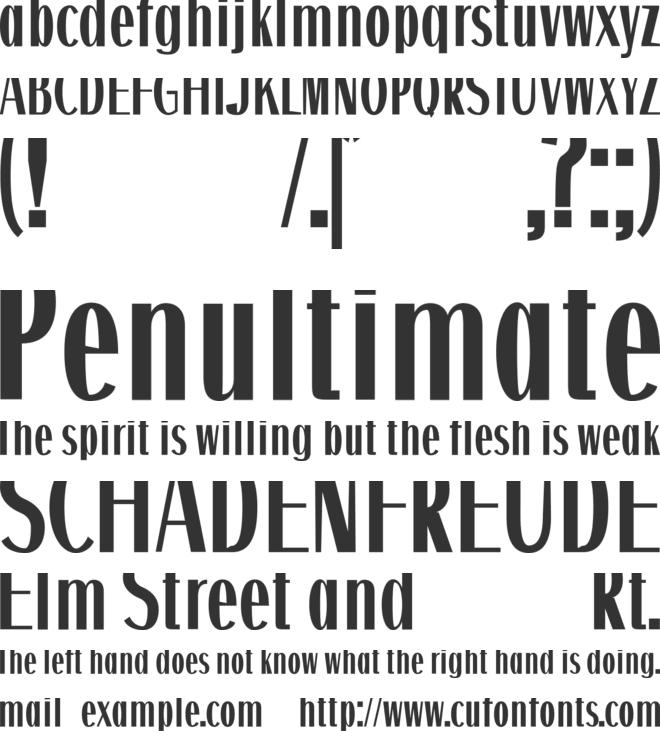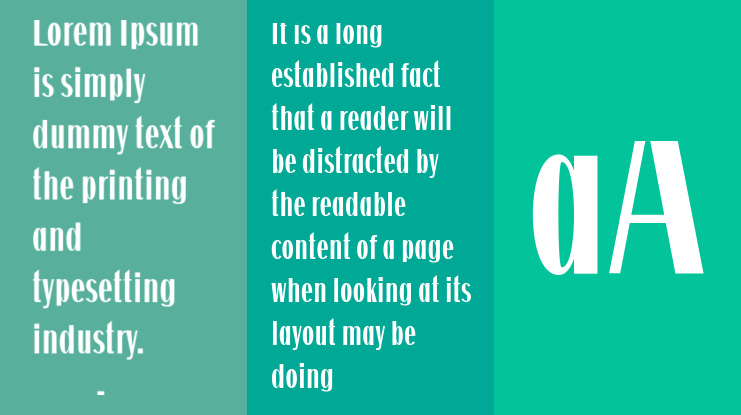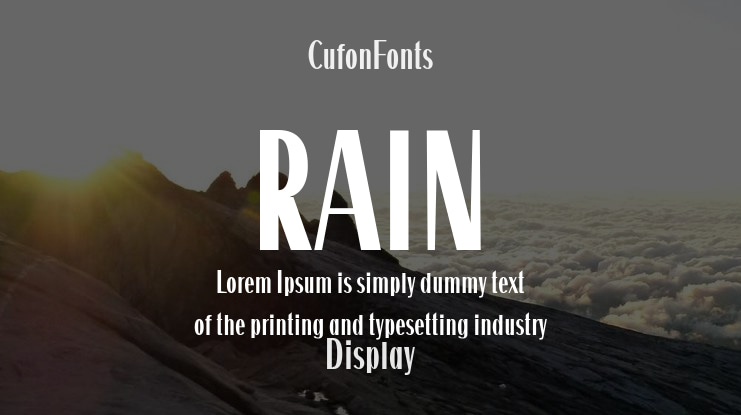
RAIN Font
🎨 Font Name: RAIN by Minimalist Art Studio
🎨 Font Description: RAIN is a romantic condensed sans serif with elegant curves and multilingual support, perfect for beauty branding, lifestyle, and editorial calm.
βœ” Complete Latin set + multilingual diacritics
βœ” Alternates, stylistic sets & ligatures
βœ” Numbers, small caps, and extended punctuation
βœ” Bonus italics and family styles